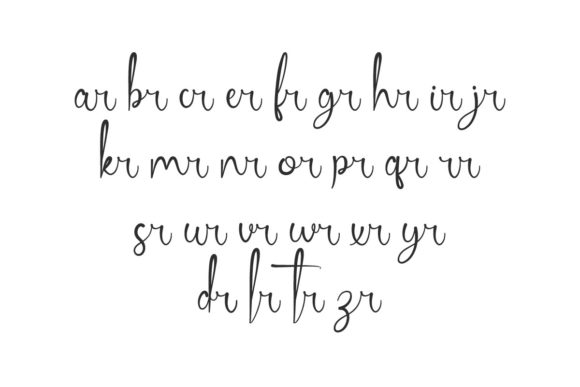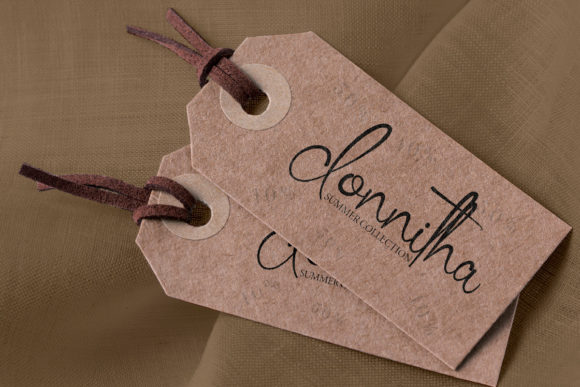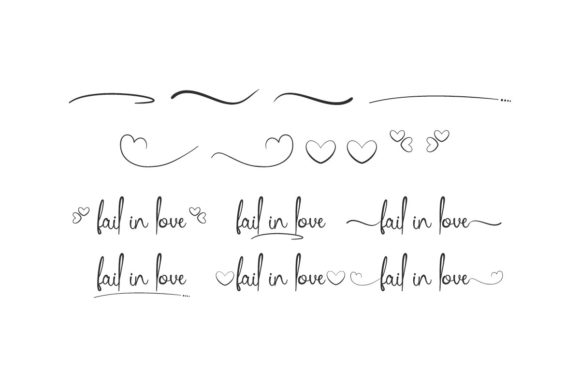
Introduction to Fail in Love Font
Have you ever stared at a blank page, searching for the perfect font to capture the essence of your creative project? It’s that moment when inspiration strikes, and you know exactly what you’re looking for – a font that exudes elegance, whimsy, or romance. For designers and creatives, finding the right font can be a game-changer, elevating their work from good to exceptional.
Enter the Fail in Love Font, a stunning handwriting font that’s perfect for weddings, branding, social media posts, and more. With its beautiful, high-quality design, this font is a valuable resource for any creative project. And the best part? It’s PUA encoded, making it easy to access all of the glyphs and swashes you need to create stunning designs.
Whether you’re working on a free download or a paid project, the Fail in Love Font is a must-have design resource that will take your work to the next level. Its transparent background and beautiful, cursive script make it a perfect choice for any design project that requires a touch of romance and elegance.
Key Features of Fail in Love Font
- Fail in Love Font offers a unique, playful style perfect for various design applications.
- Transparent background, ideal for overlaying text on images or other design elements.
- Designed as a design resource for creative professionals, Fail in Love Font is suitable for various design projects, including digital art, print materials, and more.
Honest Review: Fail in Love Font
I recently stumbled upon the Fail in Love Font while searching for a quirky design resource for a creative project. The font caught my eye with its charming, cursive script, making me excited to give it a try.
What works well about the Fail in Love Font is its high quality and versatility. The font is available for free download, making it an excellent addition to any designer’s collection. It’s perfect for creating eye-catching headings, quotes, or even social media graphics. The transparent background allows for seamless integration with any design element, making it a great asset for creative projects.
- ✨ Quirky and charming design that adds a touch of personality to any project
- ✨ High-quality font with smooth lines and curves
- ✨ Transparent background for easy integration with other design elements
However, I did encounter a few limitations with the Fail in Love Font. The font can be a bit too ornate for some designs, and the cursive script may not be suitable for all types of projects. Additionally, the font may not be as readable at smaller font sizes, which can be a concern for designers who need to use the font in small print.
Overall, I’m impressed with the Fail in Love Font and its potential to add a unique touch to creative projects. While it may have some limitations, its charm and versatility make it a great addition to any designer’s toolkit.
Getting the Most Out of Fail in Love Font
To get the most out of Fail in Love Font, use it in conjunction with a transparent background to create visually appealing designs. Experiment with different font sizes, colors, and arrangements to create a unique look for your creative project.
The Fail in Love Font is ideal for a variety of design projects, including social media graphics, blog posts, and marketing materials. Its high-quality design makes it perfect for creating eye-catching headings and titles.